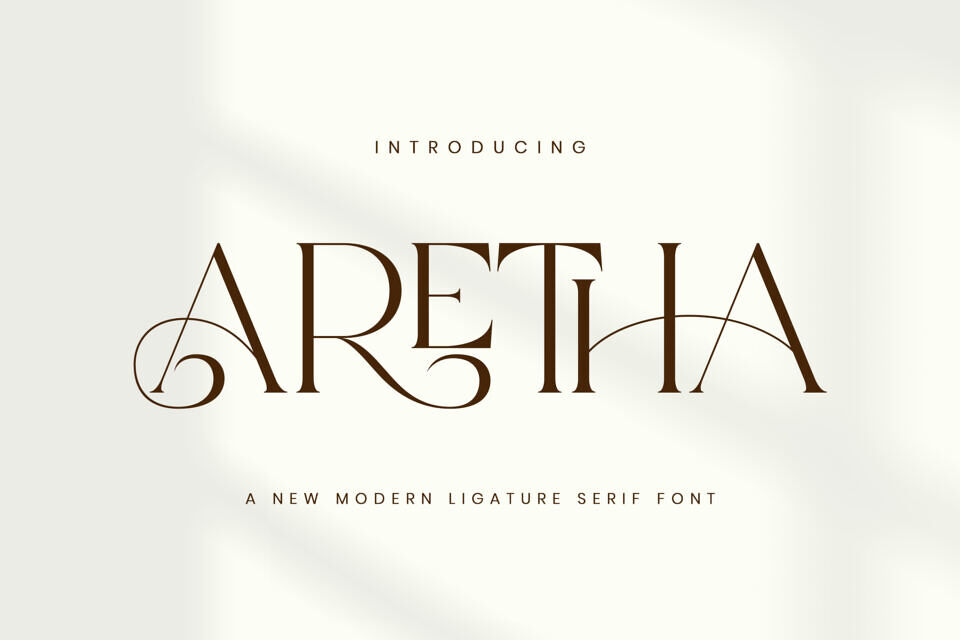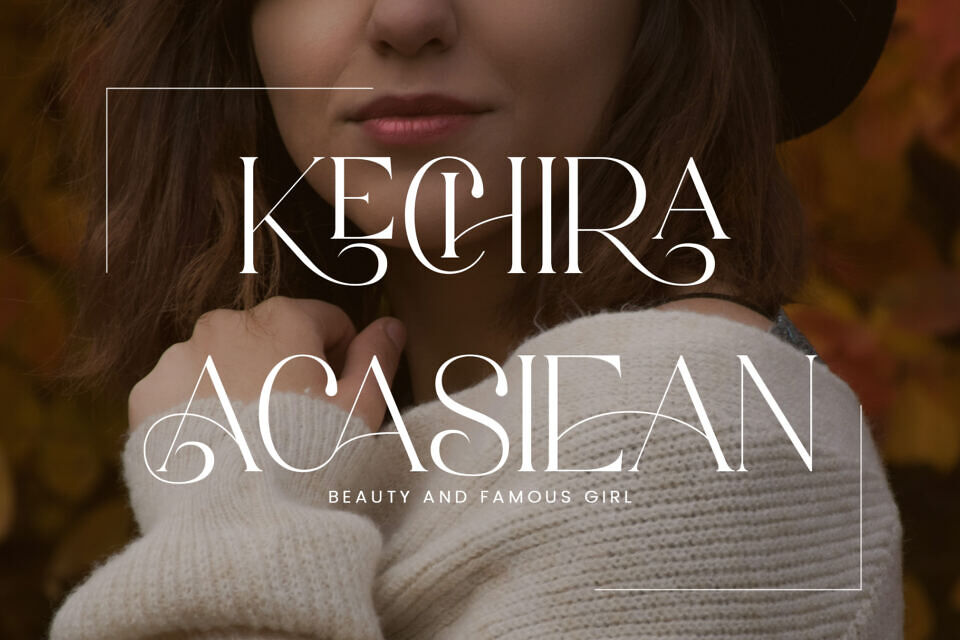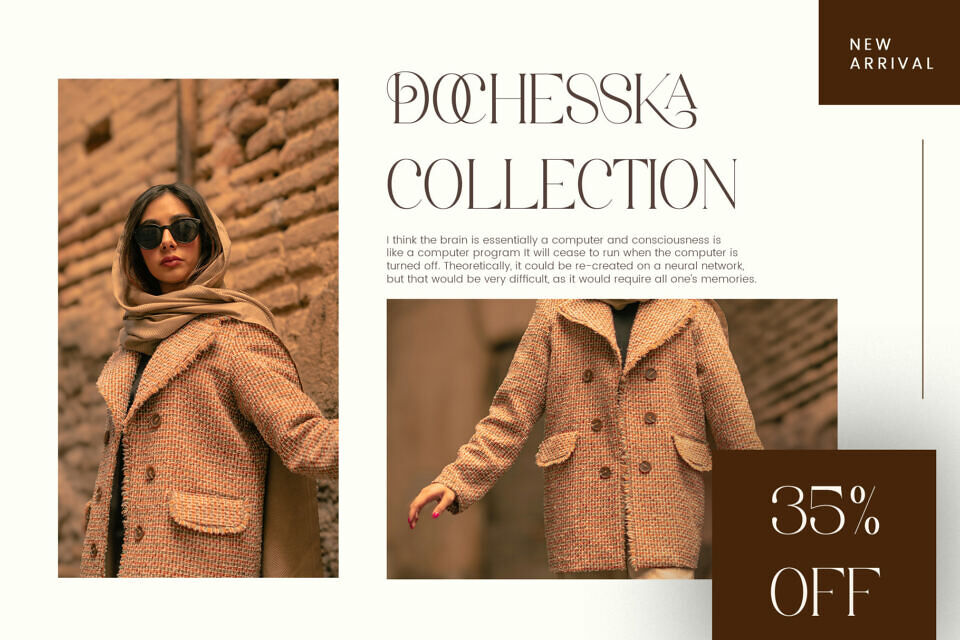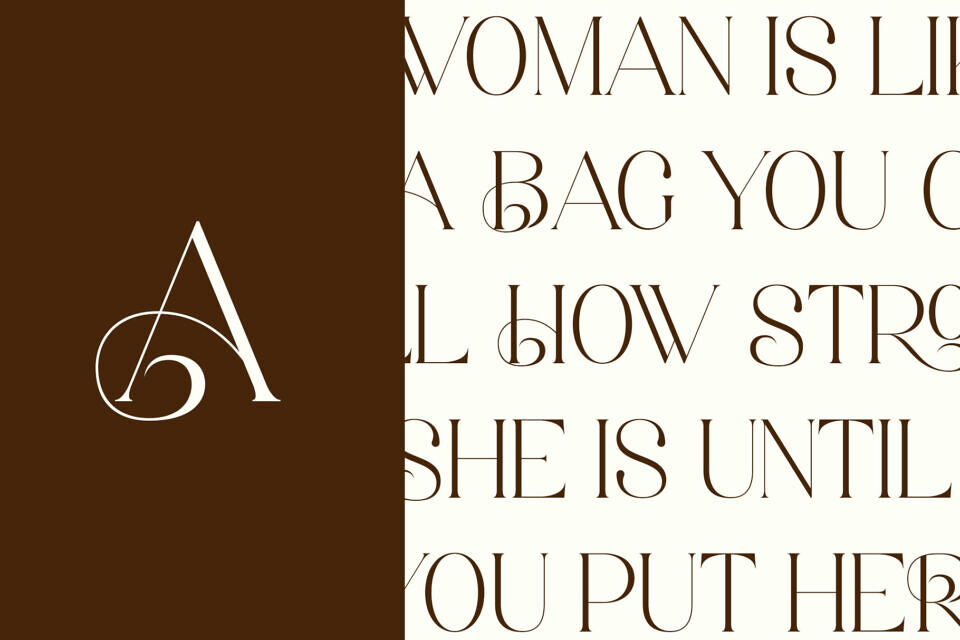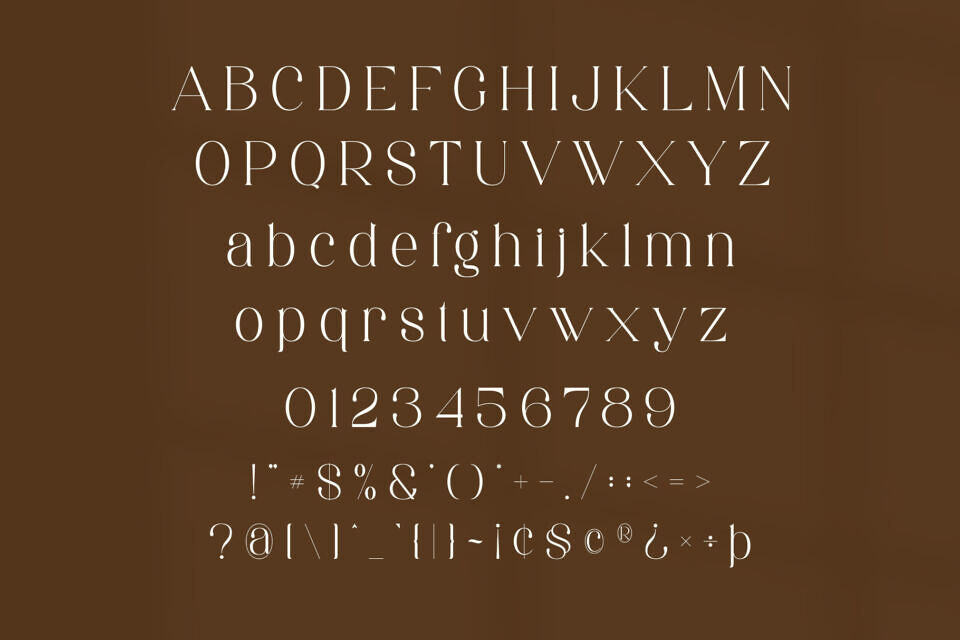
Aretha Font
Elevate your visual identity with Aretha, a new modern ligature serif font that masters the art of high-fashion storytelling. Aretha features razor-sharp serifs contrasted with lyrical, sweeping ligatures that weave characters together like fine jewelry.
Its sophisticated rhythm and generous x-height provide a sense of timeless luxury, making it a “hero” typeface for the fashion and beauty industries.